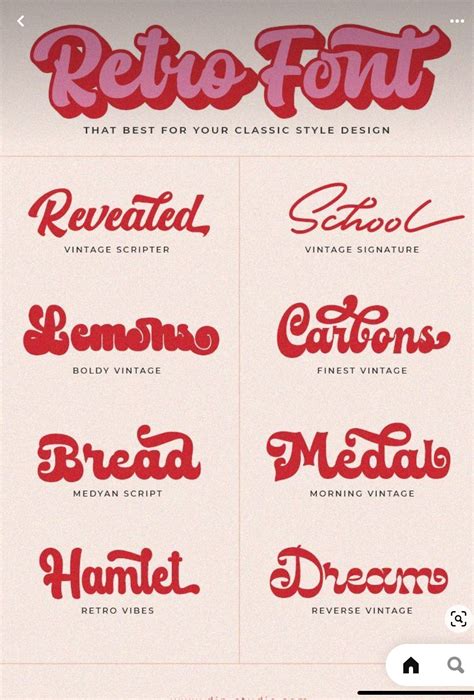
Choosing the right Graphic Design Font is one of the most critical decisions a architect can create when building a brand identity or make optic content. Typography is not only about choosing fibre that look nice; it is about convey a specific humour, content, and professional tone to your mark audience. Whether you are act on a minimalist logotype, an grand column ranch, or high-conversion societal medium ads, the font you select act as the vocalism of your plan. When you understand the psychological impact and technical requirements of respective typefaces, you derive the ability to influence how your employment is perceived by likely node and consumer alike.
Understanding Typography Fundamentals
To subdue the art of option, you must first savvy the core family of composition. Every designer should know the dispute between Seriph, Sans Serif, Script, and Presentation font. These class form the foundation of any visual projection.
Key Font Categories
- Serif Fonts: These feature small stroke at the end of character lines. They are traditionally associated with reliability, history, and sophistication. Think of them as the "formal wearable" of pattern.
- Sans Serif Typeface: Devoid of the small terminal apoplexy, these volunteer a clean, modern, and minimalist esthetic. They are highly clear on digital screens and roving devices.
- Script Case: Mime hand or calligraphy, these add a human trace. They are fantabulous for invitation or marque signatures but must be utilize meagerly to maintain readability.
- Presentation Baptistery: Project for wallop, these are much flaky and extremely stylized. They should merely be expend for headlines or declamatory rubric where you want to catch immediate tending.
💡 Note: Always prioritise legibility over aesthetic flair. If your hearing struggles to say your text, your designing message is already failing, regardless of how beautiful the font appears.
The Technical Side of Selecting Fonts
Beyond the look, there are technological specifications that every graphic designer must consider. Licensing, file formatting, and weight variance are just as important as the letterforms themselves. When you are curating a brand toolkit, consistence is the goal. Couple a sheer display header with a extremely readable, geometric sans-serif body textbook is a standard scheme that ply visual balance.
| Font Type | Best Expend For | Vibration |
|---|---|---|
| Seriph | Editorial, Print, Books | Authoritative, Authoritative |
| Sans-Serif | Web UI, Tech, Apps | Modern, Clean |
| Handwriting | Invitation, Logos | Elegant, Personal |
| Monospace | Coding, Industrial | Technical, Structured |
Tips for Effective Font Pairing
Mating is where the magic bechance. A mutual rookie mistake is to use too many different typeface in a single make-up. Ideally, stick to two, or at most three, baptistery per project. A good convention of pollex is to search line: if your cope is a thick, bluff sans-serif, select a light, high-contrast serif for your body transcript.
- Create Visual Hierarchy: Use sizing, weight, and colouring to guide the looker's eye through the content.
- Check Kerning and Leading: Proper spacing between letter and line assure that your text breathes and rest comfortable to skim.
- Test Responsiveness: Ensure your fonts look sharp at little sizing on mobile blind as easily as large formatting for mark.
- Context Thing: A playful, labialise case might work for a children's marque but would be incompatible for a legal consultancy house.
The journey toward becoming proficient with typography is uninterrupted. By center on the structural balance, understanding the emotional circumstance of different way, and strictly testing your layout for legibility across various media, you can significantly elevate the calibre of your optic output. Always remember that typography is the primary vehicle for your message, and the correct selection will control that your originative aim is open, impactful, and memorable for every viewer who engages with your graphic design work.